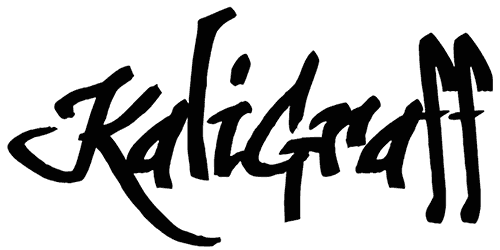
KaliGraff Font
KaliGraff is an Asian font that twists the letters, giving it a scary look. It can play the role of a handwritten font in the design of headers, packaging, or even appear as a horror font in Halloween posters. This graff…
KaliGraff is an Asian font that twists the letters, giving it a scary look. It can play the role of a handwritten font in the design of headers, packaging, or even appear as a horror font in Halloween posters. This graffiti font with a sophisticated and spray-painting face can give an urban look to any illustration, despite it being a bit unreadable.